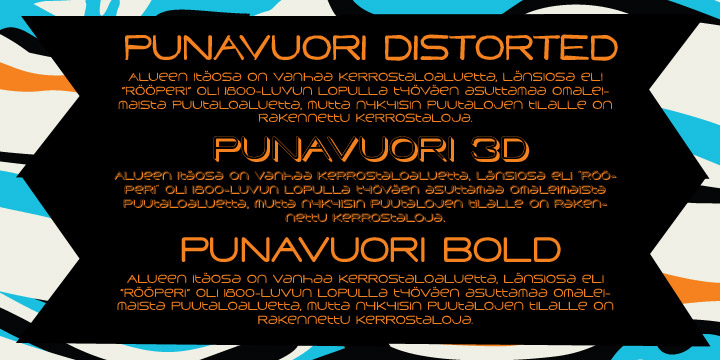
This contemporary typeface is an outstanding choice for projects that embody urban sophistication, minimalist design, and a touch of Nordic cool. Imagine it defining the brand identity of modern cafes, providing a sleek aesthetic for design studio portfolios, or gracing the pages of cutting-edge architectural magazines. Punavuori Font is also perfectly suited for designing stylish app interfaces, crafting clean and impactful logos for fashion brands, or creating compelling headlines for cultural events. Its balanced proportions and understated elegance make it an ideal option for any design seeking to convey modernity, refined simplicity, and an effortlessly chic sensibility, such as art gallery signage, high-end furniture brochures, or conceptual photography exhibitions.
What makes Punavuori Font so exciting? It often features a unique blend of geometric precision and subtle humanistic touches, giving it a distinct personality without being overtly decorative. This font doesn’t just convey text; it sets a mood—one of quiet confidence and contemporary flair. It’s engineered to offer exceptional readability across various applications, from large display text to smaller body copy, maintaining its sophisticated appeal. The inherent clarity and adaptable nature of its letterforms make it particularly effective for brands that champion innovation, clean aesthetics, and a timeless yet modern approach to design. Its minimalist yet impactful presence can evoke a sense of thoughtful design and urban sophistication, making it a favorite for lifestyle brands and creative industries.
The Punavuori Font family typically offers a comprehensive range of weights and styles, providing extensive flexibility for designers to build cohesive and versatile typographic systems. You can expect to find a broad spectrum of options, including Thin, Light, Regular, Medium, Bold, and perhaps even an Extra Bold or Black weight, along with corresponding italic versions. Each weight is meticulously designed to maintain the font's core characteristics while offering distinct visual impacts, allowing for a rich and nuanced typographic hierarchy. These variations enable designers to create sophisticated and highly functional text layouts, effectively differentiating between headlines, subheadings, and body text with elegance and precision. The extensive family ensures that Punavuori Font can be the singular typeface for an entire brand system, guaranteeing visual consistency and a polished, contemporary appearance across all mediums.
Whether you're shaping a new urban brand, designing a sleek digital experience, or simply need a typeface that speaks with modern elegance and understated impact, Punavuori Font Free Download is an exceptional choice. Its refined design and broad versatility will ensure your message is always delivered with clarity and sophisticated purpose.